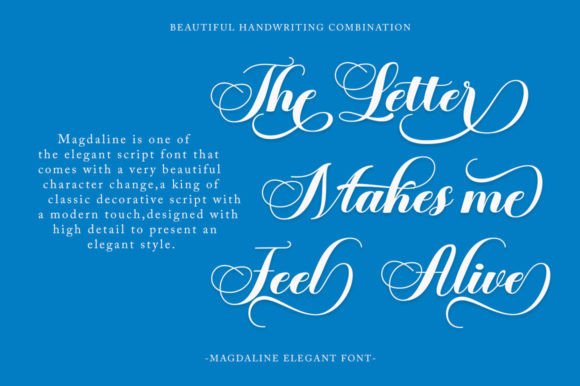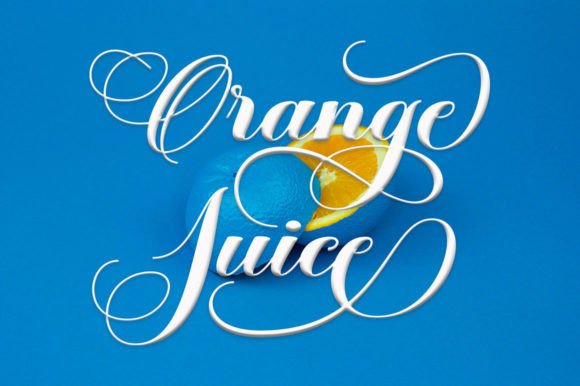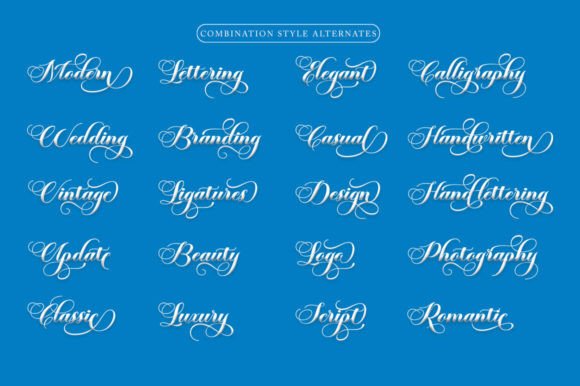
Introduction to Magdaline Font
As a designer, have you ever been stuck on a creative project, searching for that perfect font to elevate your design? The struggle is real, but it’s about to get a whole lot easier with the introduction of the stunning Magdaline Font. This beautiful calligraphy typeface is a game-changer for designers, adding a touch of luxury and sophistication to any project.
Imagine being able to add a dash of elegance to your next design project with just a few clicks. With Magdaline Font, you can do just that. Its romantic and sweet characters dance along the baseline, creating a visually appealing effect that’s sure to captivate your audience. And the best part? It’s PUA encoded, making it easy to access all the amazing glyphs and ligatures you need to take your design to the next level.
Key Features of Magdaline Font
- High-quality font with a transparent background, allowing for versatility in design.
- Magdaline Font is designed with a modern aesthetic, making it suitable for a wide range of applications.
- Includes a comprehensive set of characters, including uppercase and lowercase letters, numbers, and punctuation.
- Magdaline Font is a unique design resource that can add a touch of elegance to any creative project.
Honest Review: Magdaline Font
As a designer, I’m always on the lookout for high-quality design resources to elevate my creative projects. The Magdaline Font caught my eye, and I’m excited to share my honest review.
What works well: ✨ The Magdaline Font is a beautiful, elegant script font that’s perfect for adding a touch of sophistication to any design. It’s available for free download, making it an excellent design resource for anyone on a budget. I also appreciate that it comes with a transparent background, which makes it easy to use in a variety of design contexts.
What doesn’t work so well: ⚠️ While the Magdaline Font is a high-quality font, I do wish it came in more weights and styles. Currently, it’s only available in a single weight, which can limit its versatility. Additionally, the font may not be suitable for use in small text sizes, as it can become difficult to read.
Overall, I’m impressed with the Magdaline Font. Its elegant design and transparent background make it a valuable addition to any designer’s toolkit. While it has some limitations, I believe it’s a great resource for designers working on creative projects who need a high-quality, free font.
Key features:
- High-quality, elegant script font
- Suitable for creative projects and design resources
Magdaline Font
Tips for Getting the Most Out of Magdaline Font
To get the most out of the Magdaline Font, experiment with different font sizes, colors, and styles. Consider combining the font with other design elements, such as images and graphics, to create a unique and eye-catching design.
The Magdaline Font is ideal for a variety of creative projects, including logos, business cards, and social media graphics. It’s also great for adding a touch of elegance to presentations, documents, and websites.